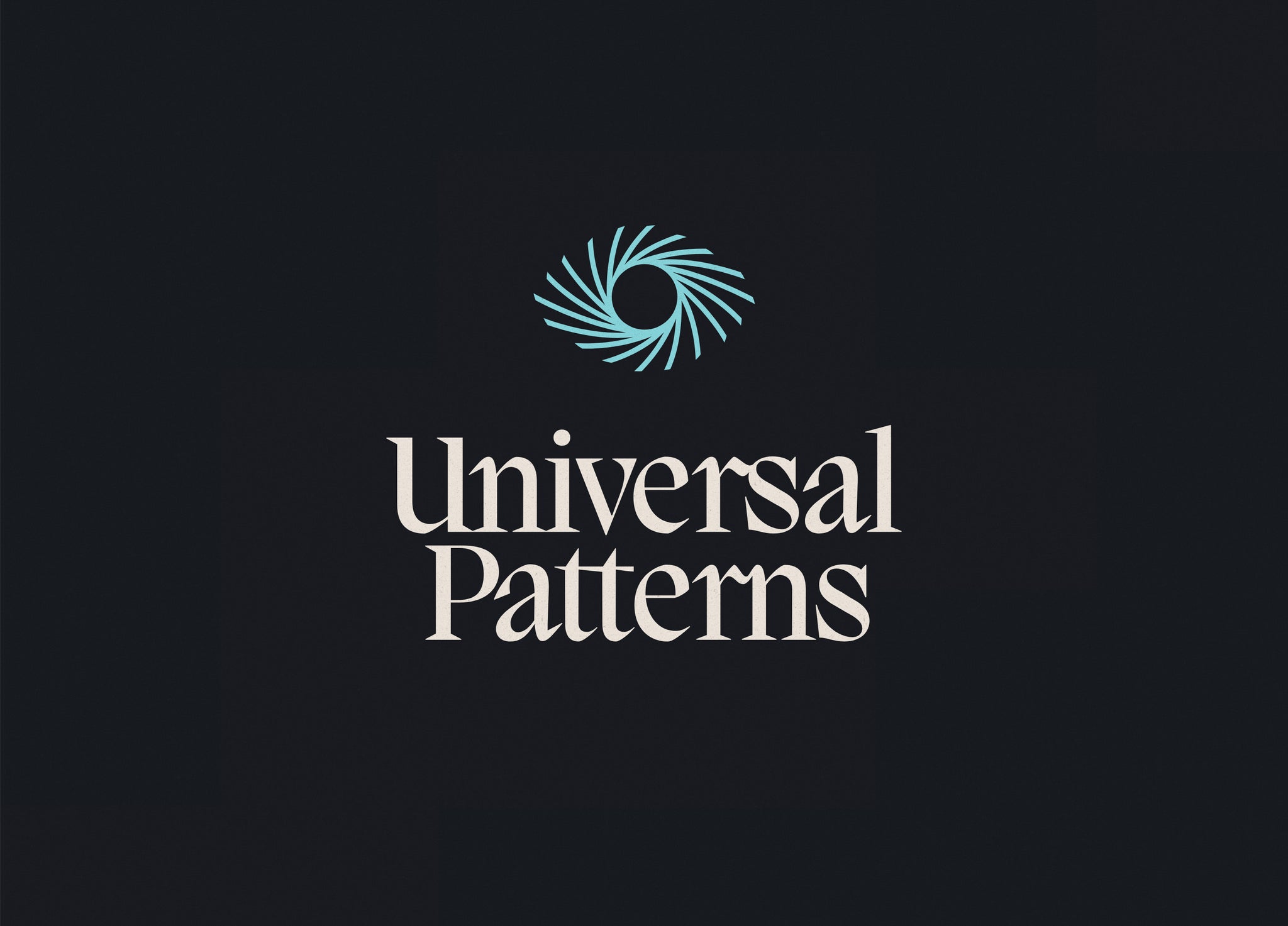
Luckily, that's a lot different these days! Web designers are using more and more fonts in websites. So much that it is starting to replace hero images and videos as the main way to captivate the user's attention quickly. Getting content to the user efficiently has become paramount in a world where mobile devices is the main means of getting information.
A unique well-made type in a great setting can do a lot for a brand. Obviously we are big advocates of this approach, but even more so, we believe it is a design trend that is bound to last. It may seem new-ish to web design, being a fairly young media but design using mainly type as been around for ages. Ancient Rome and Greece were using type for signage and communication everywhere, it is only natural as web design matures that it tends to shift towards these established paradigms.
Type is your New Hero
Big and bold text as the main design element of your site or app can give a lot of personality and is definitely a great way to communicate your brand’s Tone & Voice. Used in a proper layout or in a creative way, type can be as strong if not stronger than an image or a video, establishing concept and content at the same time. Use bold types for titles, mix romans with italics or sans serifs with serifs in a same text to create interesting design elements to captivate the user.
Here is a few examples we picked up:
Layout, Layout
There are a couple of trends going on right now concerning type layouts. You can go with extreme layouts which might fall under the brutalism category (which we particularly like) but most of the time a clean layout matched with a clean typeface will go a long way. A decluttered and simple interface using mostly type will make things much easier for the user to achieve his goal on your website or app. Make sure you leave plenty of breathing room for your text — Play with line height, letter spacing, size and contrast to achieve the best possible overall feeling for the user.
Here are a few examples of layouts we really like, from brutal to minimal:
Trending Styles
Type in the interactive world has been through a lot of different trends from pixel fonts to grotesque to monospace fonts and, like the fashion industry, these trends come and go over the years. Starting last year and still going strong this coming year, we are seeing a big usage of display serif and slab fonts. That is the main reason we created Chronos Serif which you can try for free here.
Another trend we are noticing more and more is extended types, especially grotesque. Used in the right way they can really set off your designs (we are actually working on one as we speak). Try outlining them for a more contemporary look!
ALastly, a strong sans serif is really hard to beat when it comes to sending a big message with a bold title. It is a trend that has been here for a couple of years now and is probably here to stay. Most of the designs or ads you will see have sans serif fonts so the rule here to set your designs apart is to use a unique font in a unique way. Make the layout different, clean and let it breathe. Again, kerning, line spacing, size and contrast are all variables you can play with to transform your design into a masterpiece. There are hidden wonders many fail to see in using the right ratio of content vs. space.
Here are a few examples of font styles use for inspiration: